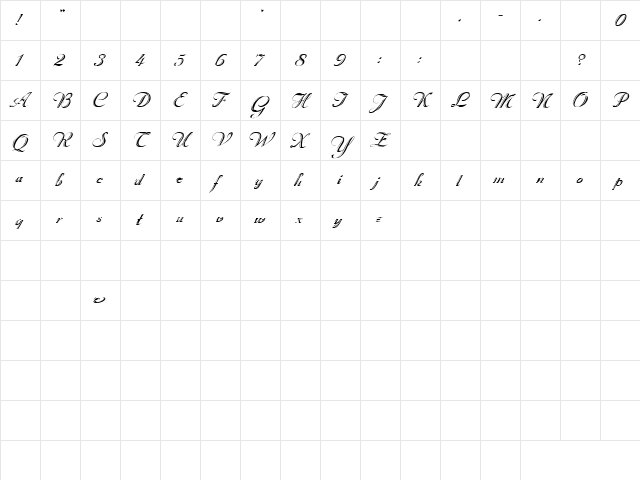
Church 3 Plain Italic
Design Context for Church 3 Typeface
Church 3 is a composed and adaptable typeface that performs quietly and consistently across a wide range of design contexts. The dynamic lean of this cut emphasises speed and emphasis in any layout.
Pro Tip: Try Church 3 for annotation and caption copy alongside an upright companion — the contrast in angle creates a dynamic but ordered typographic system.